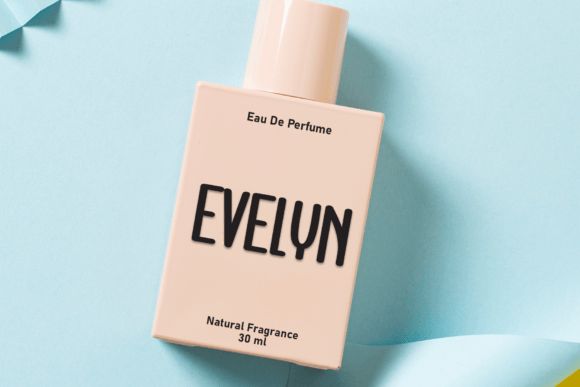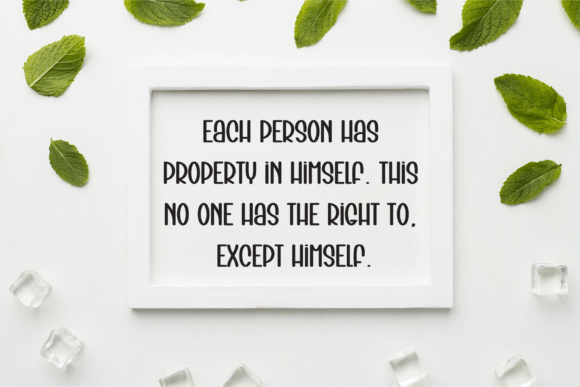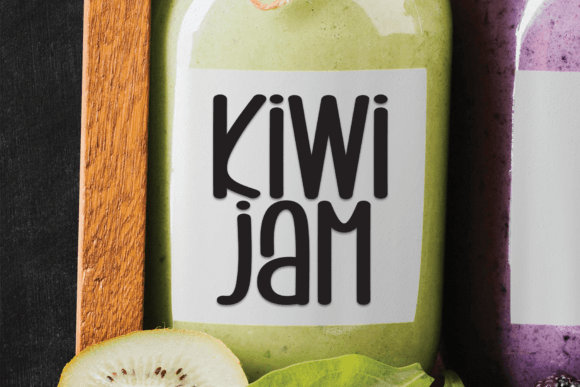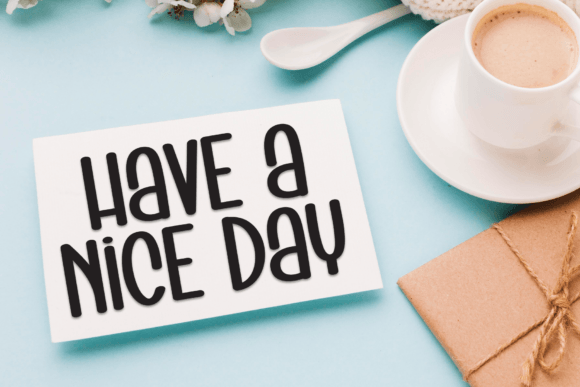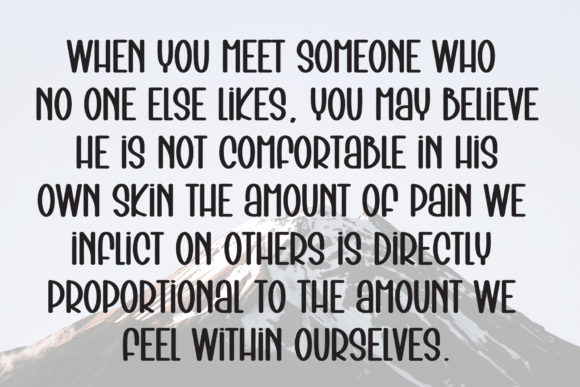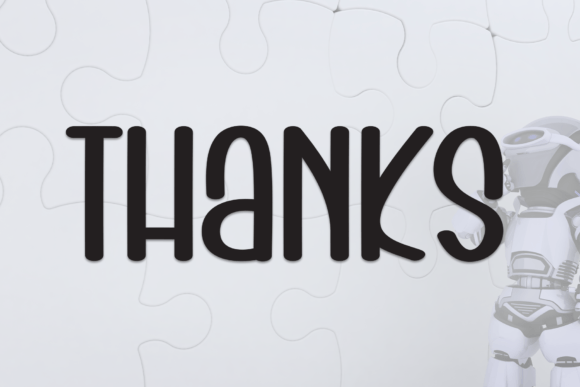
The Creative Machine Font: A Sweet and Friendly Companion for Your Design Journey
I’ll never forget the moment I stumbled upon the Creative Machine font. I was working on a project for a client who wanted a playful, yet elegant look for their branding. I had spent hours scouring through font libraries, but nothing seemed to fit the bill. That was until I discovered Creative Machine – a sweet and friendly handwritten font that instantly captured the essence of what my client was looking for.
- ✅ Unique and Natural Style: Creative Machine boasts a one-of-a-kind, handcrafted look that’s perfect for a wide range of designs.
- ✅ Versatility: From whimsical crafts to elegant branding, this font adapts seamlessly to different contexts.
- ✅ Easy to Read: Despite its creative flair, Creative Machine remains highly legible, even at smaller sizes.
- ⚠️ Limited Formality: Due to its friendly nature, Creative Machine might not be the best fit for very formal or corporate designs.
- ⚠️ Glyph Variety: While it has a good range of characters, some users might find the glyph selection a bit limited for very specific design needs.
The Story Behind Creative Machine: A Glimpse into Its Design Inspiration
Creative Machine was born out of a passion for handwritten typography and a desire to create a font that feels both approachable and unique. Its designer aimed to capture the essence of everyday handwriting, making it relatable and friendly. This font is perfect for anyone looking to add a personal touch to their designs.
| Can I use Creative Machine for my branding? | Absolutely! Creative Machine’s friendly and unique style makes it an excellent choice for branding projects. |
| Does Creative Machine support OpenType features? | Yes, Creative Machine includes OpenType features such as ligatures and stylistic alternates, allowing for more creative flexibility. |
| Is Creative Machine easy to read? | Yes, despite its creative and handwritten nature, Creative Machine is designed to be highly legible. |